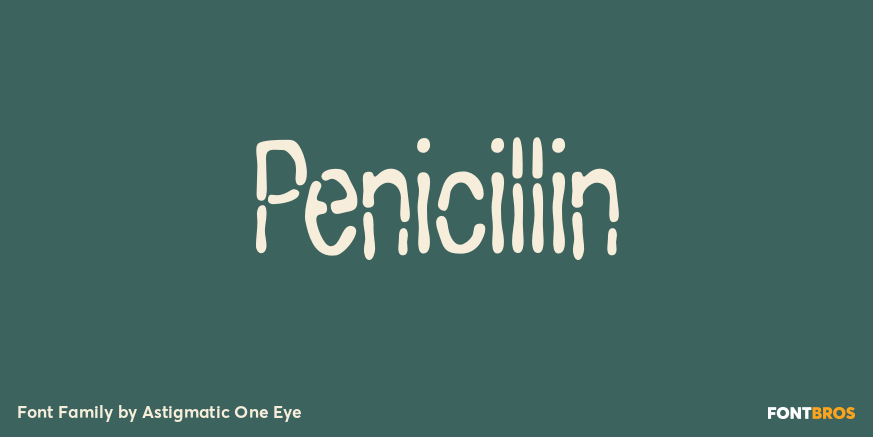
Penicillin
About Penicillin
Penicillin is a is a psuedo thematic/destructive typestyle, looking more like a grunge/deteriorated typestyle, but actually a typestyle formed of bacteria cells. From the fungus that breeds the bacteria that heals, comes a highly readable typestyle to…